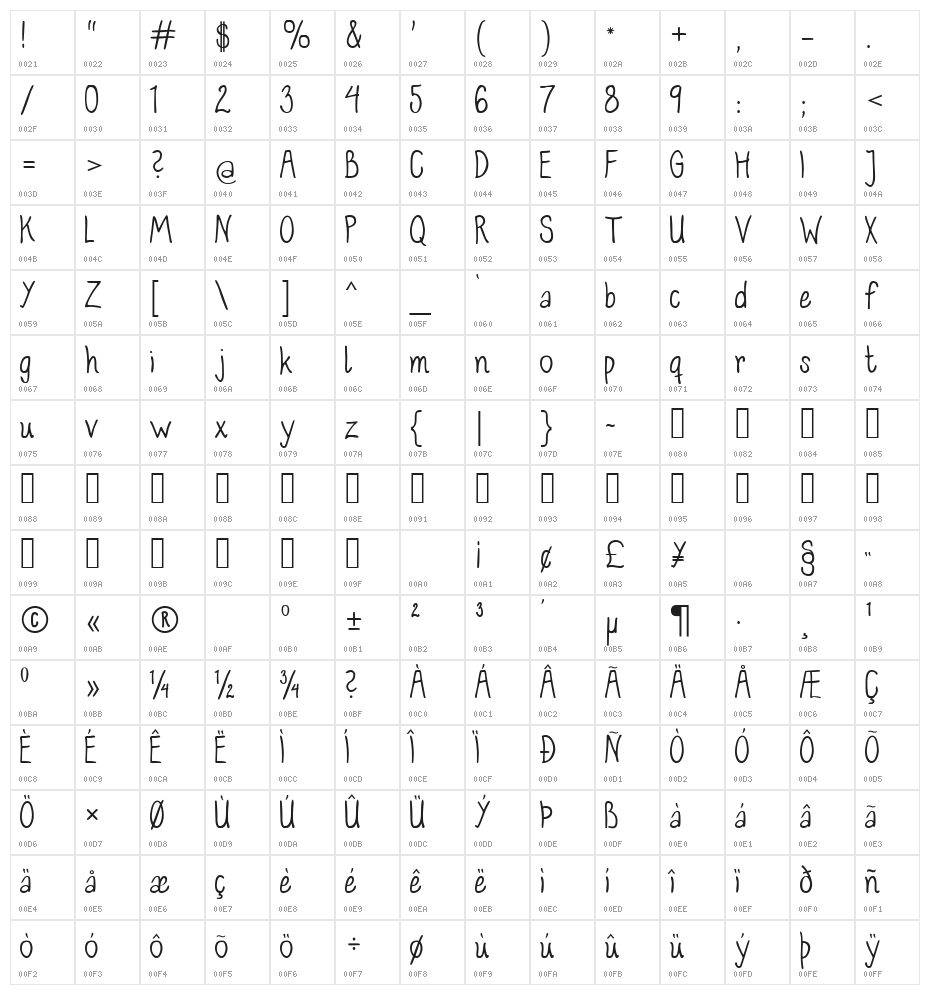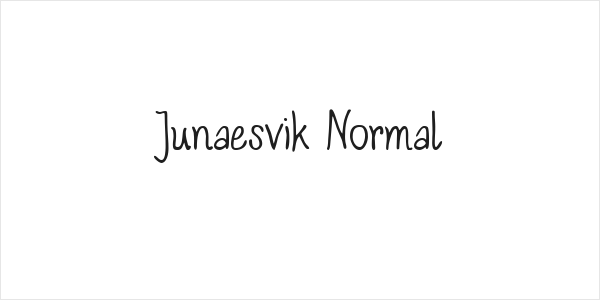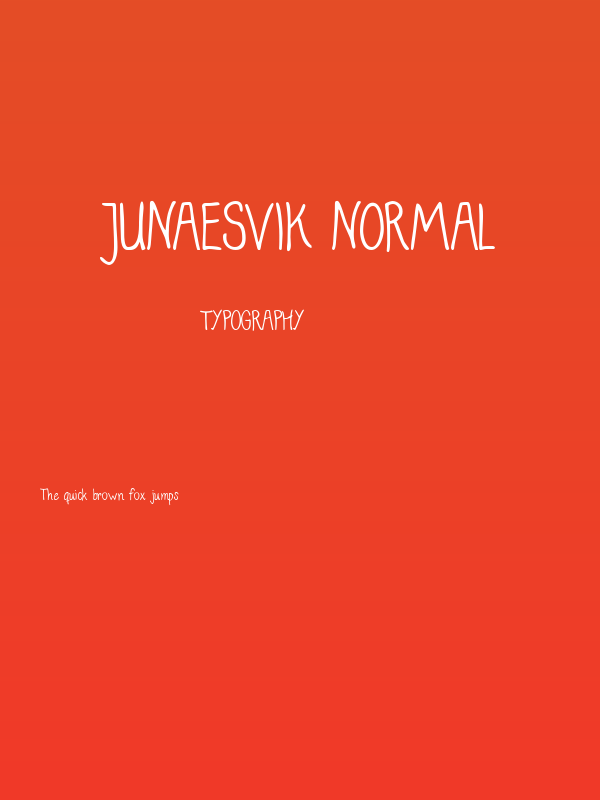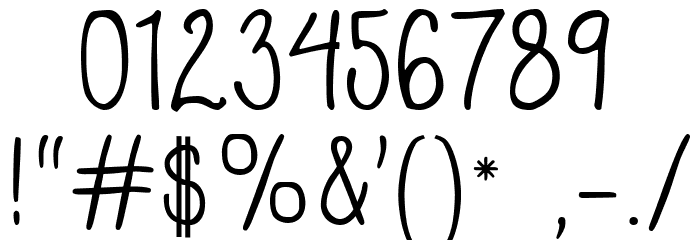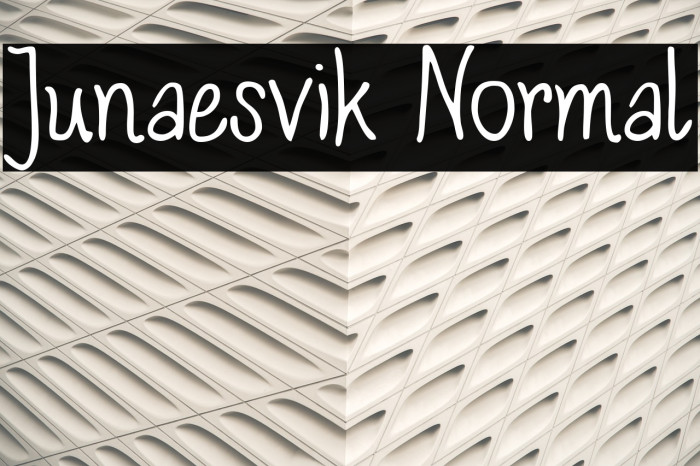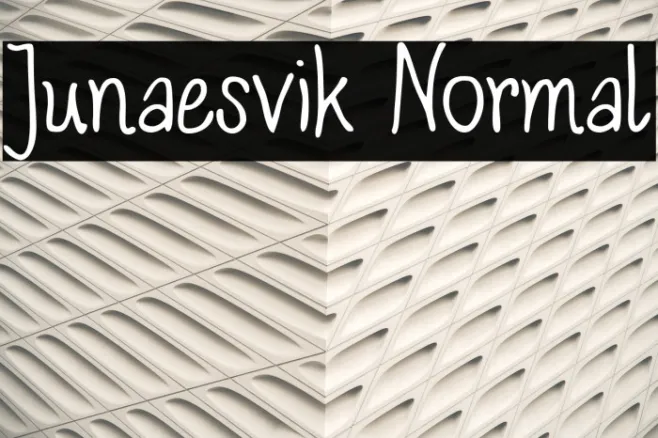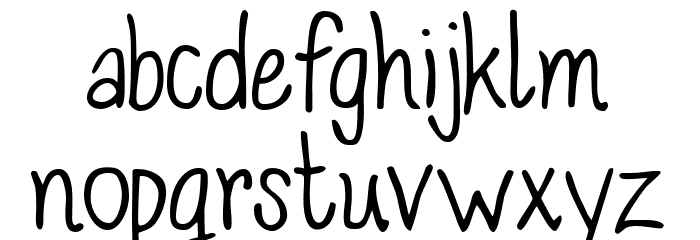
Junaesvik Normal Font
Junaesvik Normal Description
This font features a playful and casual handwritten style, characterized by its irregular and organic letterforms. The strokes are smooth and slightly uneven, giving it a friendly and approachable appearance. The uppercase and lowercase letters maintain a consistent style, with a slight tilt that adds to its informal charm. The numerals and special characters are designed to match the overall aesthetic, ensuring a cohesive look across all text elements. This font is ideal for projects that require a personal touch or a relaxed vibe.
| Use Case | Headlines, Informal text, Personal projects |
| Proposed Projects | Ideal for greeting cards, children's books, personal blogs, and informal branding. |